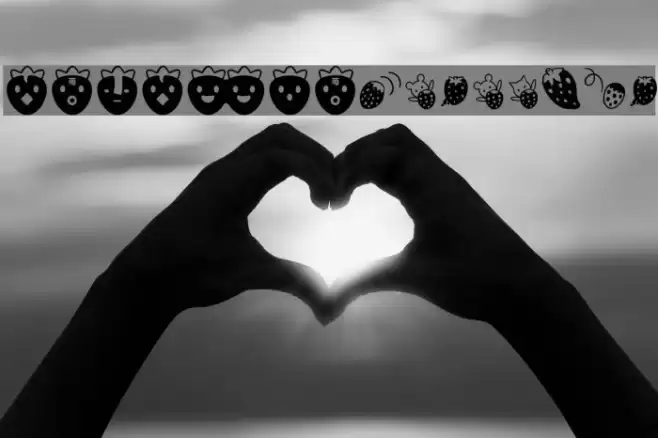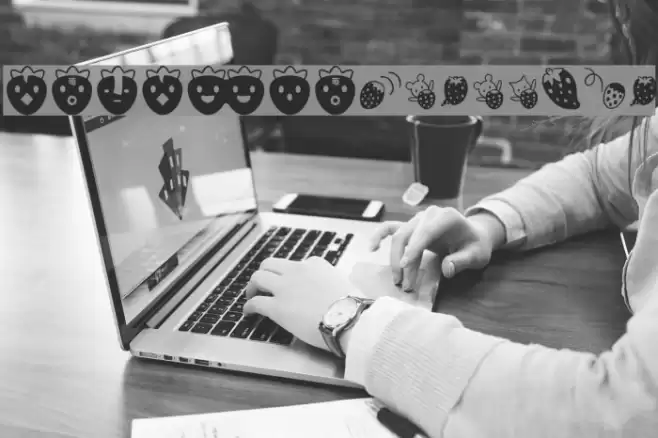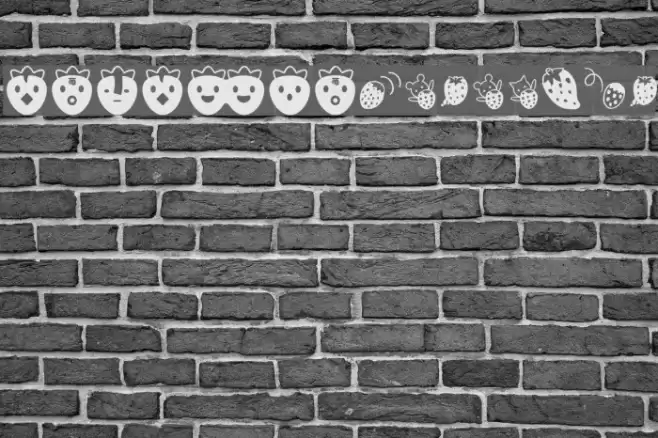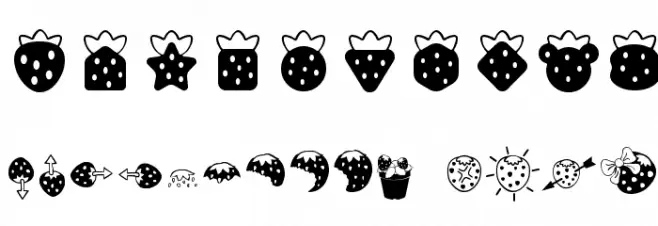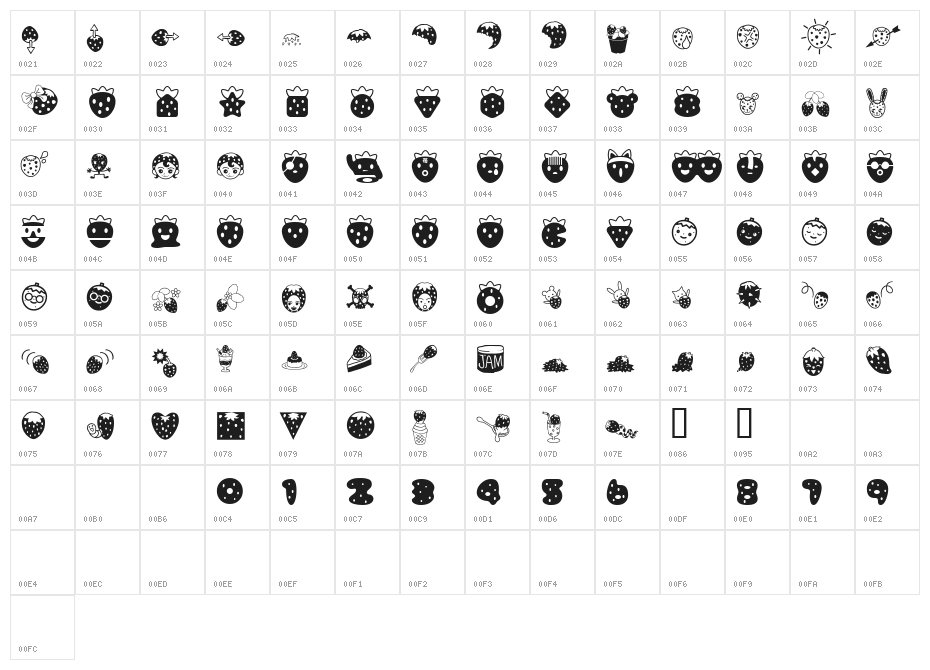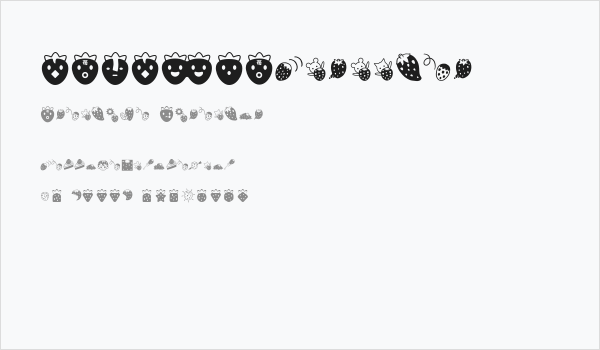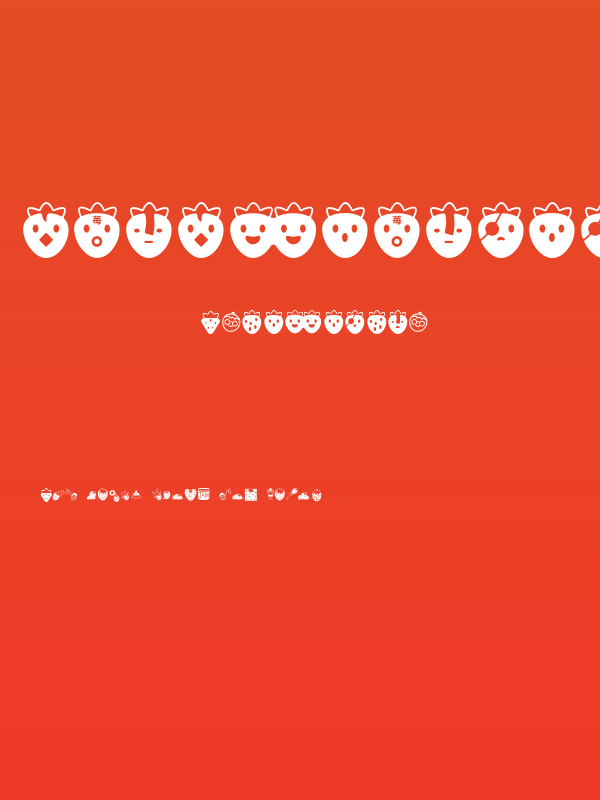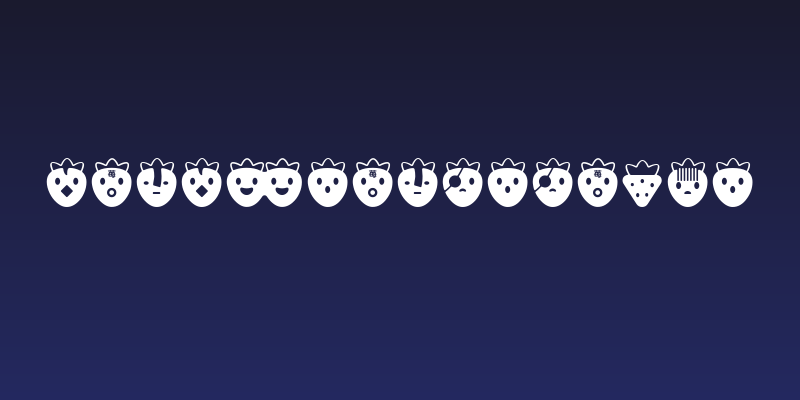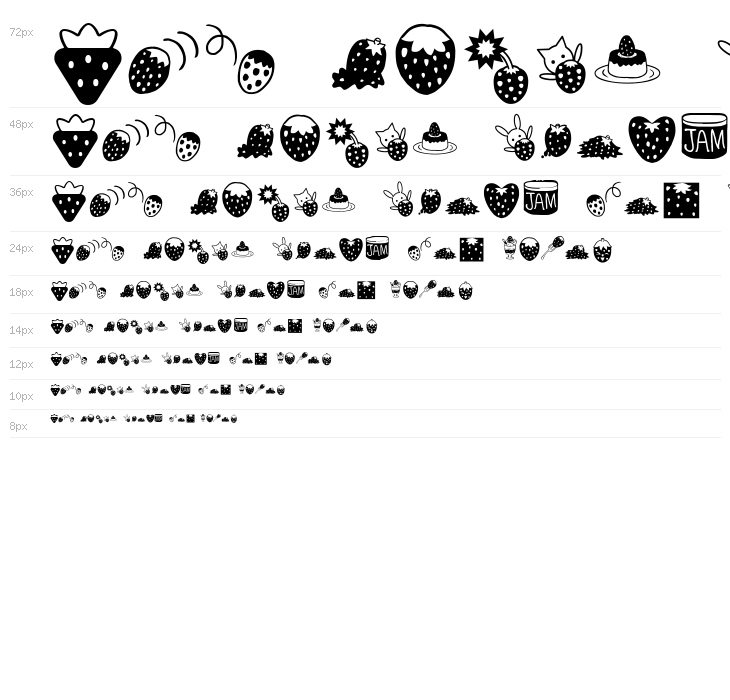
ICHIGOCharacter Font
ICHIGOCharacter Description
A playful, decorative dingbat font featuring a variety of strawberry-themed icons, including strawberries with faces, animals, desserts, and whimsical shapes. The glyphs are bold, filled, and cartoon-like, with a consistent use of black and white contrast and rounded forms.
A decorative icon font with strawberry-themed illustrations from Uncategorized fonts.
- Proposed Projects: Children's books, party invitations, food packaging, greeting cards, playful branding, stickers.
- Overall Style: Playful, Whimsical, Decorative
- Use Case: Icons, Decorative elements, Themed graphics